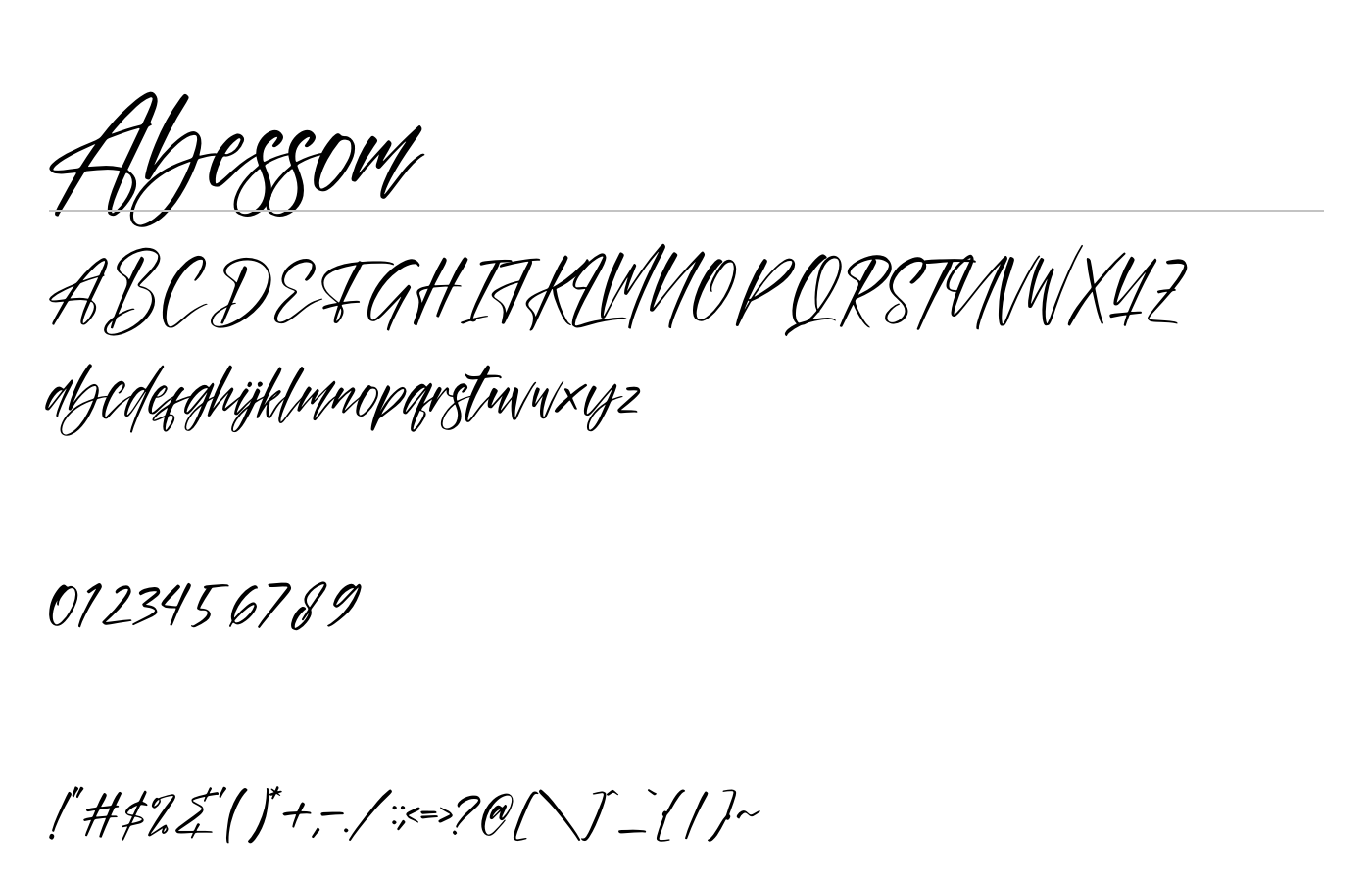
Abessom is a stylish script font characterized by its elegant, flowing strokes and a modern handwritten feel. With a medium weight and slightly condensed width, it offers lively, natural curves and dynamic letterforms that convey creativity and sophistication. This font works beautifully for branding, invitations, and any design seeking a personal yet refined touch.
Abessom Font
About Abessom Font